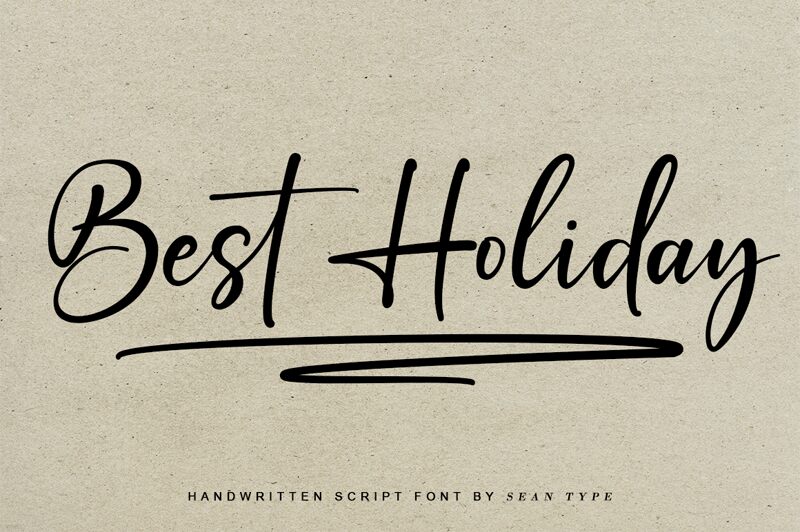
Best Holiday by Sean Type is a handwritten font with a relaxed, informal style. It has a smooth flow characteristic of handwritten characters and a modern look thanks to its flawless, rounded letterforms. Versatile, stylish, expressive, and artistic are just some of the qualities that describe this elegant font.
Best Holiday is the perfect font for any informal design work. Use it to get an artistic look to your invitation cards, posters, quotes, greeting cards, branding, logotypes, and more. Get also a stylish handwritten look and feel in your product packaging, labels, and social media posts with this font.